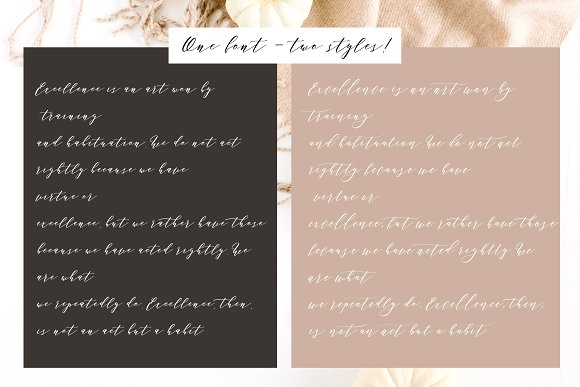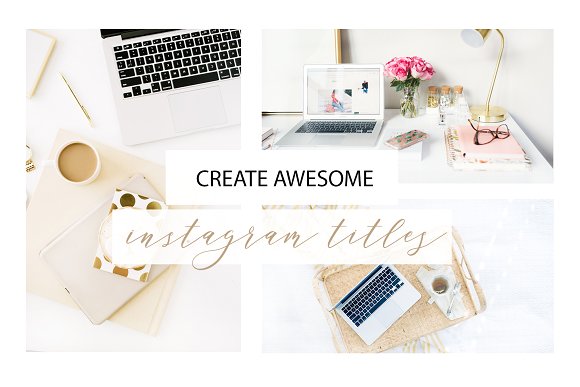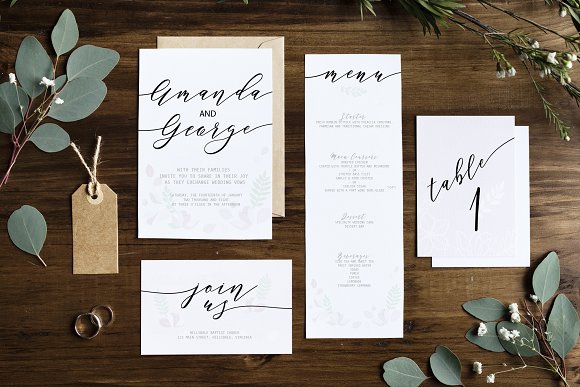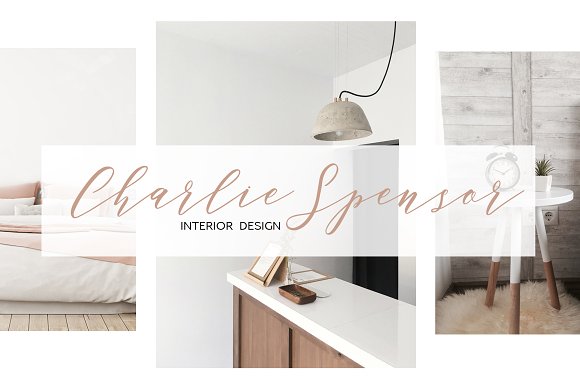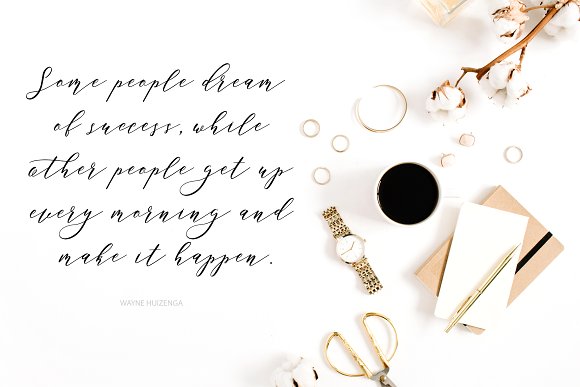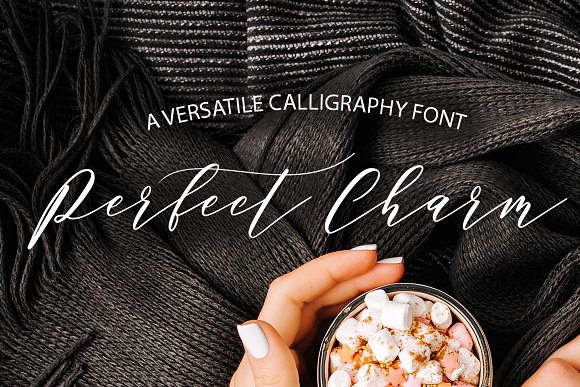
Perfect Charm – Elegant Font Script
The Perfect Charm is a hand lettered calligraphy script that comes with 3 sets of alternative lowercase letters. The first two allow you to reach a very elegant, solid, versatile style. It looks beautiful and easy-to-read in big texts. The third set is more bouncy and decorative. It is perfect for titles, headlines etc.